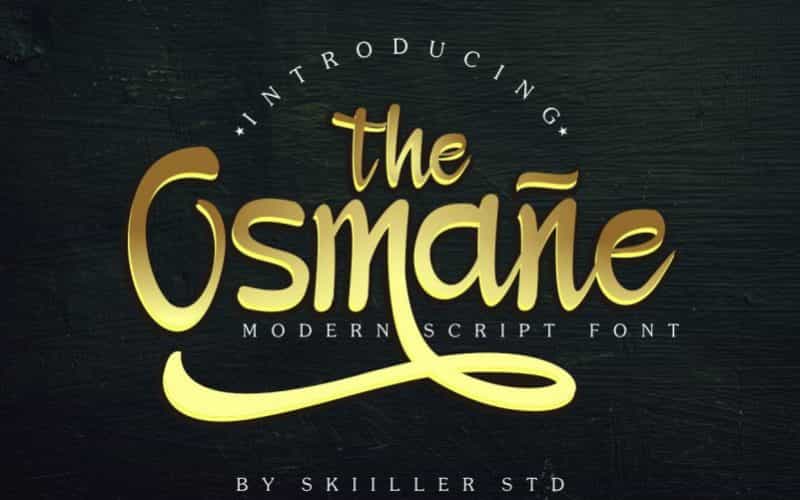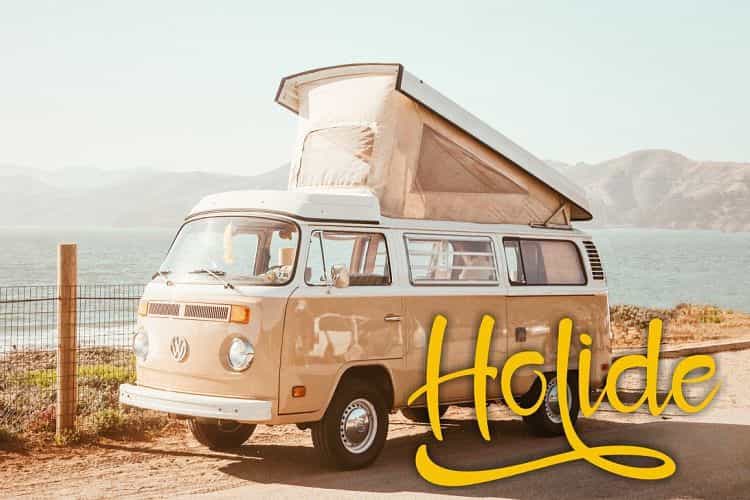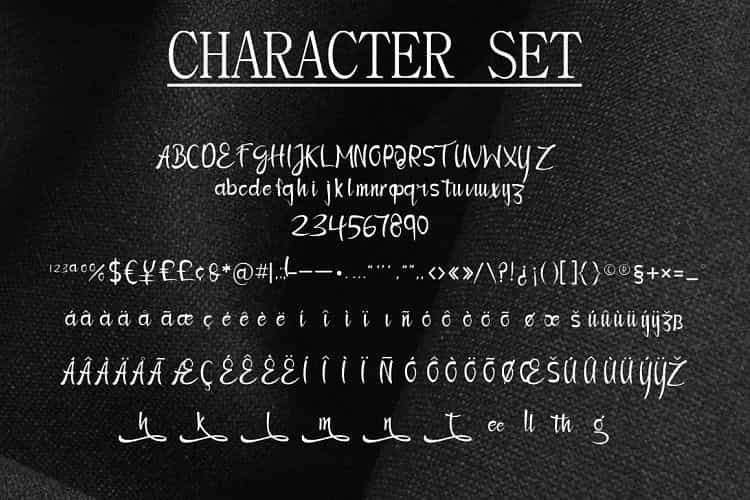
Osmane is a very fine addition to the realm of handwritten fonts. The elegant swashes create a unique signature sparkle in all your endeavors where design matters.